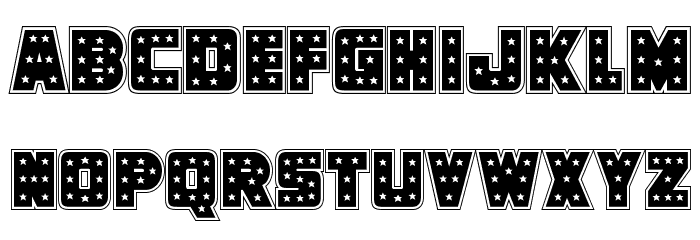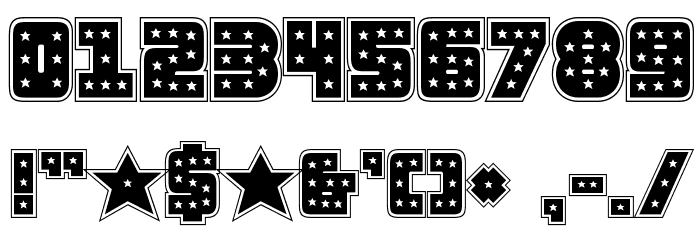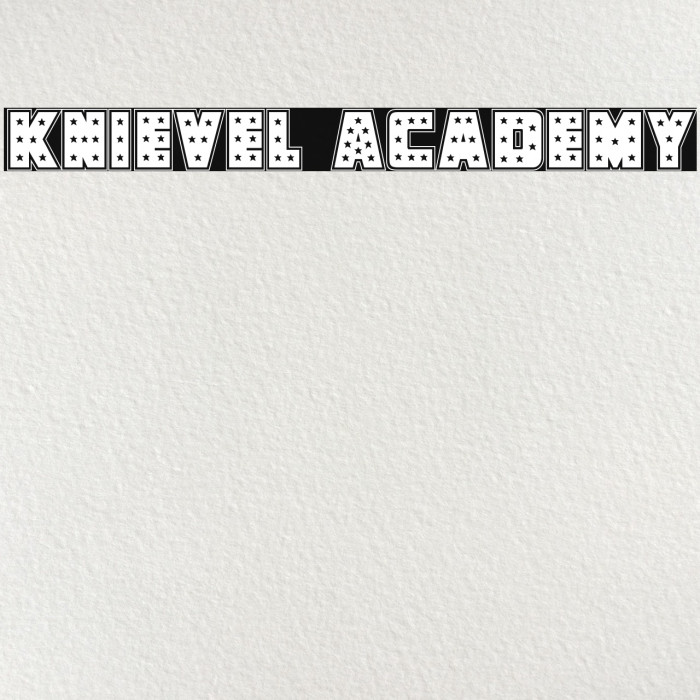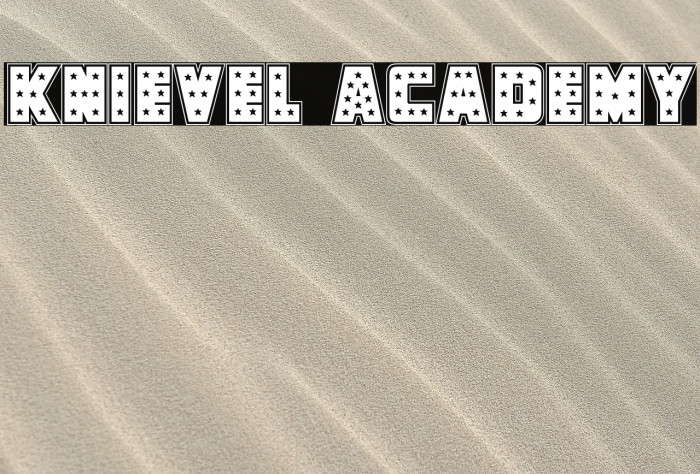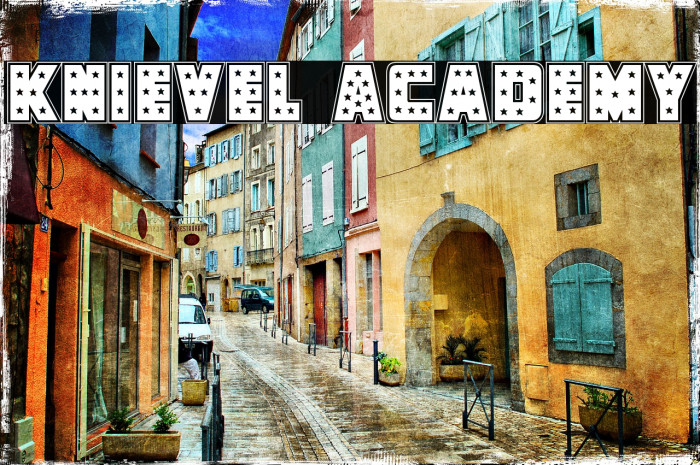
Knievel Academy Font
This font features bold, blocky characters filled with a pattern of stars, giving it a striking and decorative appearance. The letters are outlined with a thick border, enhancing their visibility and impact. The style is reminiscent of vintage circus or retro Americana themes, making it ideal for designs that require a bold and playful aesthetic. The star pattern within each character adds a unique texture, making it stand out in any design. The font includes uppercase letters, numbers, and a selection of special characters, all maintaining the same star-filled design. This font is perfect for projects that aim to capture attention and convey a sense of fun and excitement.
A bold, star-patterned decorative font with a vintage Americana vibe.
- Proposed Projects: Ideal for posters, event flyers, logos, and any design needing a bold, playful touch.
- Overall Style: Vintage, Decorative